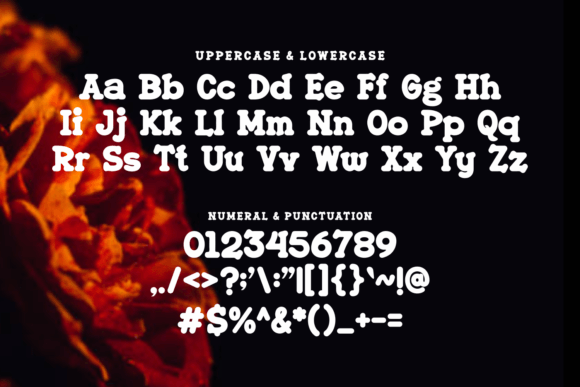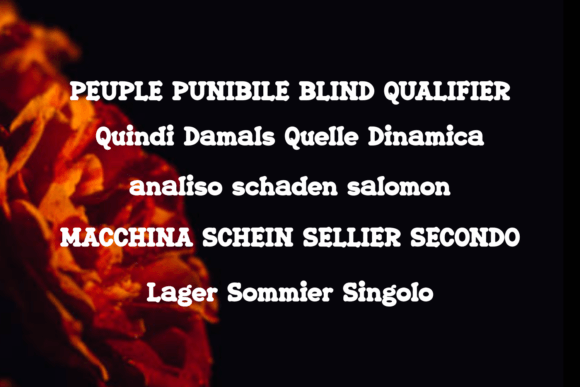
Introducing Ernimo Font: The Ultimate Choice for Creative Projects
Are you looking for a font that can add a touch of joy, smiles, and excitement to your upcoming projects? Look no further than Ernimo Font! With its rounded corners and chubby bold looks, this font is perfect for designers and crafters who want to create visually appealing and engaging content.
What Makes Ernimo Font Special?
Ernimo Font is a unique and versatile font that suits a wide range of applications, including posters, game titles, cartoon movies, credit titles, magazines, and more. Its rounded corners and bold design make it perfect for headlines, titles, and short texts, while its clear and readable design ensures that it can be used for longer texts as well.
Ernimo Font is designed to bring a sense of fun and playfulness to your projects. Its chubby bold looks and rounded corners give it a friendly and approachable feel, making it perfect for projects that require a lighthearted and humorous tone. Whether you’re designing a poster for a children’s party, creating a title for a cartoon movie, or crafting a magazine article for kids, Ernimo Font is the perfect choice.
Key Features of Ernimo Font
- Rounded Corners: Ernimo Font features rounded corners that give it a soft and friendly look.
- Chubby Bold Looks: The font’s bold design makes it perfect for headlines and titles, while its chubby looks add a touch of playfulness.
- Clear and Readable: Despite its bold design, Ernimo Font is clear and readable, making it suitable for longer texts.
- Versatile: Ernimo Font can be used for a wide range of applications, including posters, game titles, cartoon movies, credit titles, magazines, and more.
Tips for Getting the Most Out of Ernimo Font
- Use it for Headlines: Ernimo Font is perfect for headlines and titles, so use it to grab attention and add visual interest to your designs.
- Experiment with Colors: Ernimo Font looks great in a variety of colors, so don’t be afraid to experiment and find the perfect color scheme for your project.
- Pair it with Other Fonts: Ernimo Font can be paired with other fonts to create a unique and visually appealing design.
Ernimo Font is a unique and versatile font that can add a touch of joy, smiles, and excitement to your upcoming projects. With its rounded corners and chubby bold looks, it’s perfect for designers and crafters who want to create visually appealing and engaging content. Whether you’re designing a poster, creating a title for a cartoon movie, or crafting a magazine article, Ernimo Font is the perfect choice.